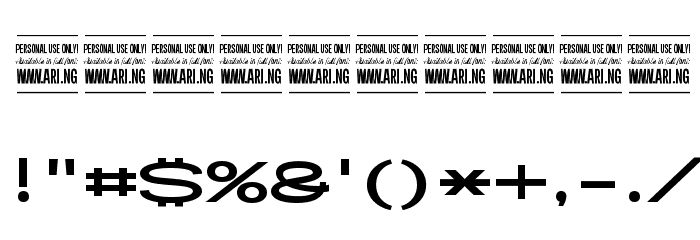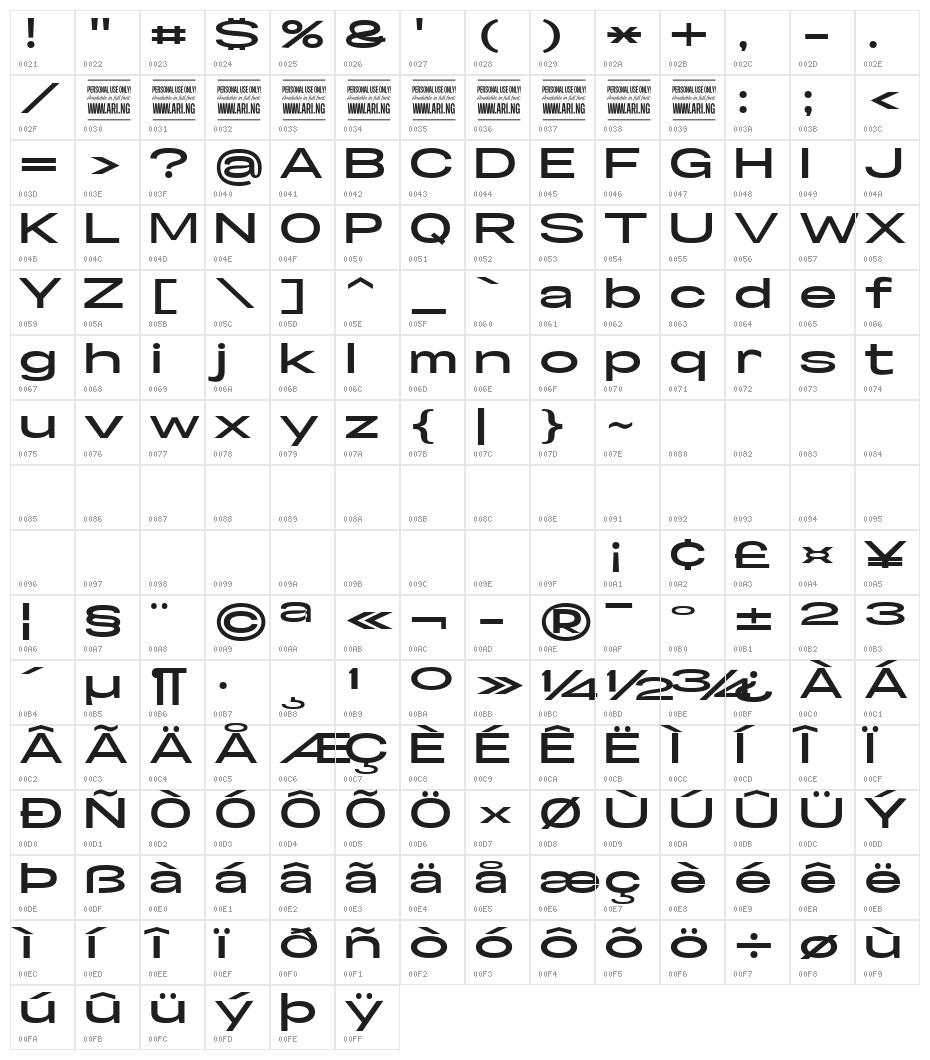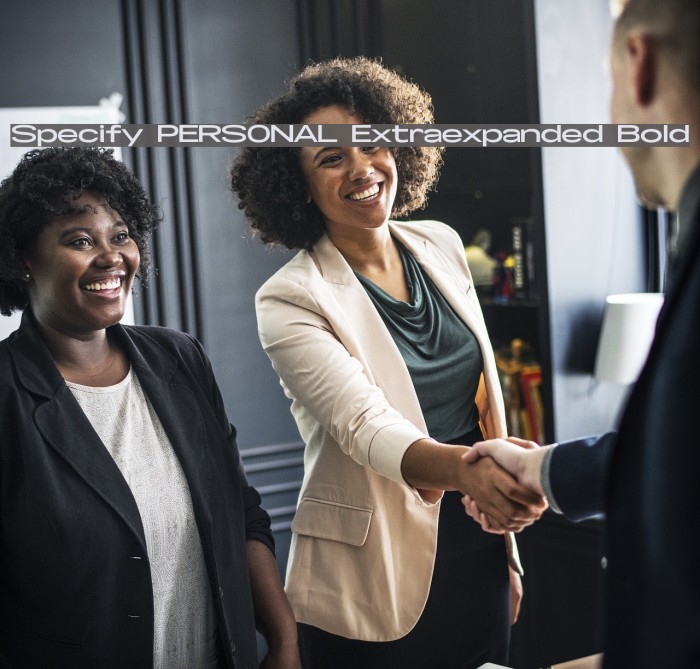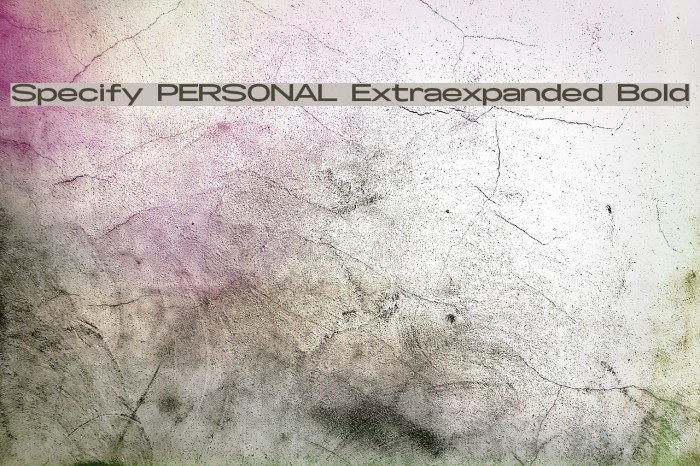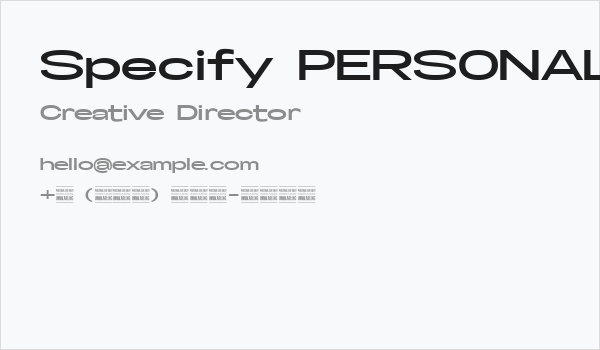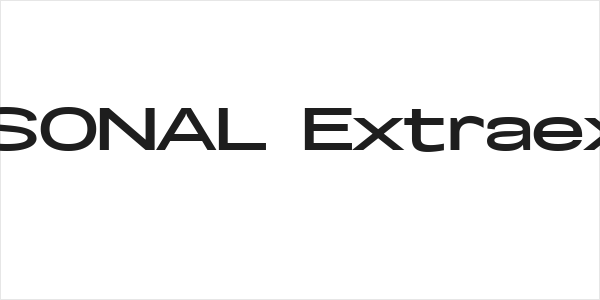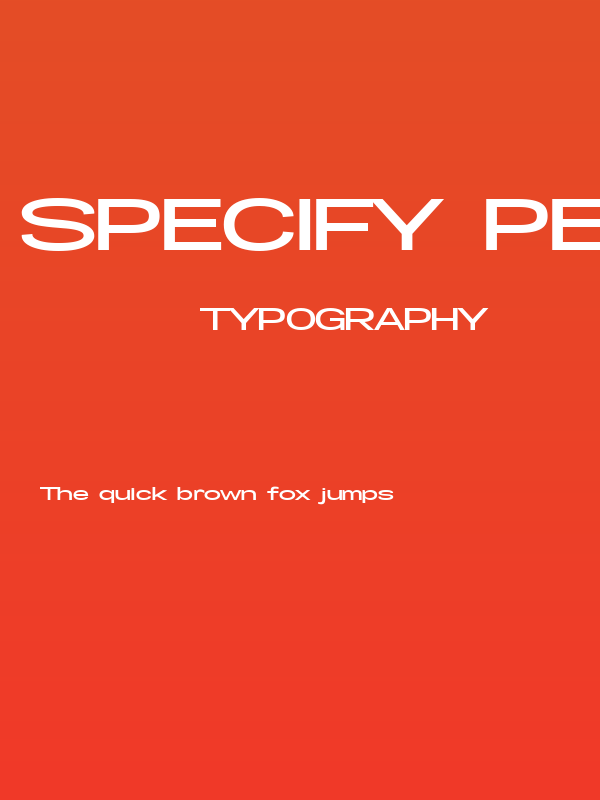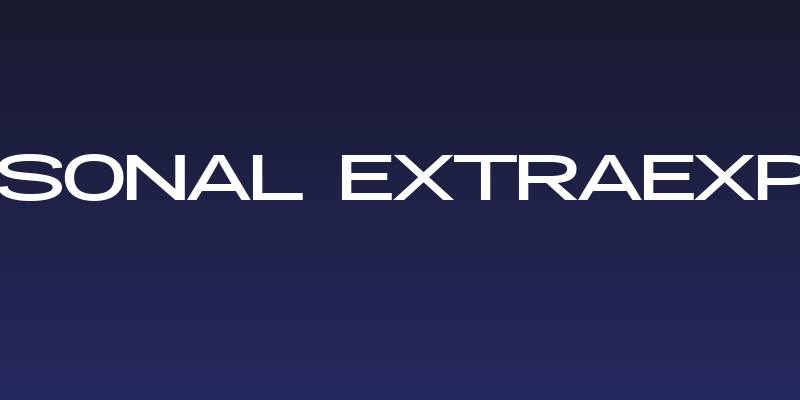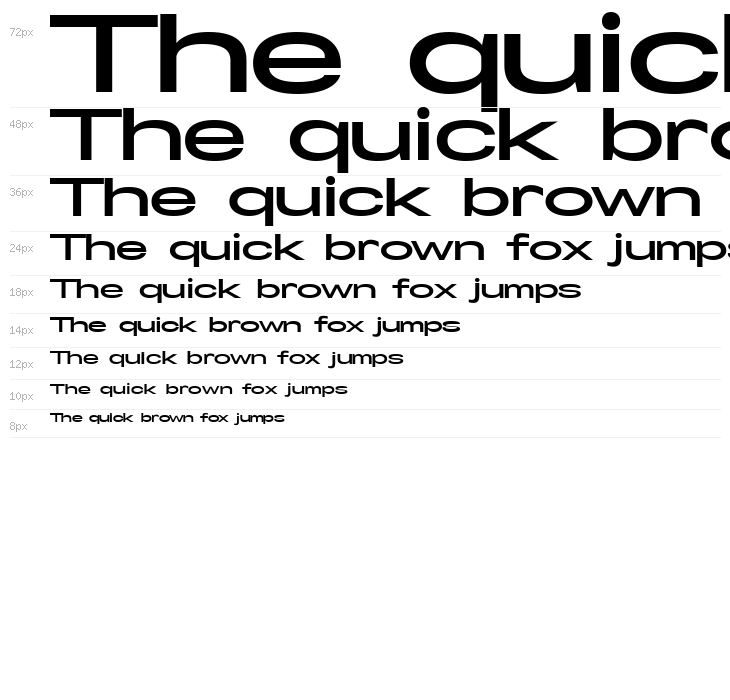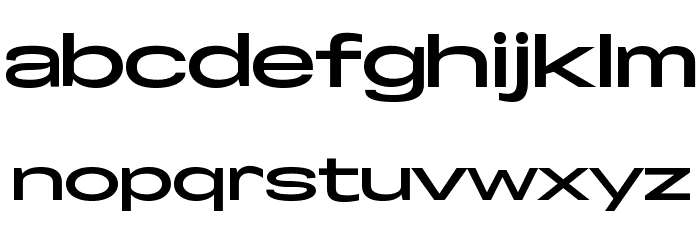
Specify PERSONAL Extraexpanded Bold Font
Specify PERSONAL Extraexpanded Bold Description
This font features a bold and extra-expanded style, characterized by its wide letterforms and strong presence. The uppercase and lowercase letters maintain a consistent thickness, providing a uniform appearance. The design is modern and sleek, with clean lines and minimal contrast between strokes. The characters are well-spaced, offering a balanced and readable text. The font includes a full set of uppercase and lowercase letters, numerals, and a variety of special characters, making it versatile for different design needs.
| Proposed Projects | Ideal for branding, advertising, headlines, and any project requiring a strong visual impact. |